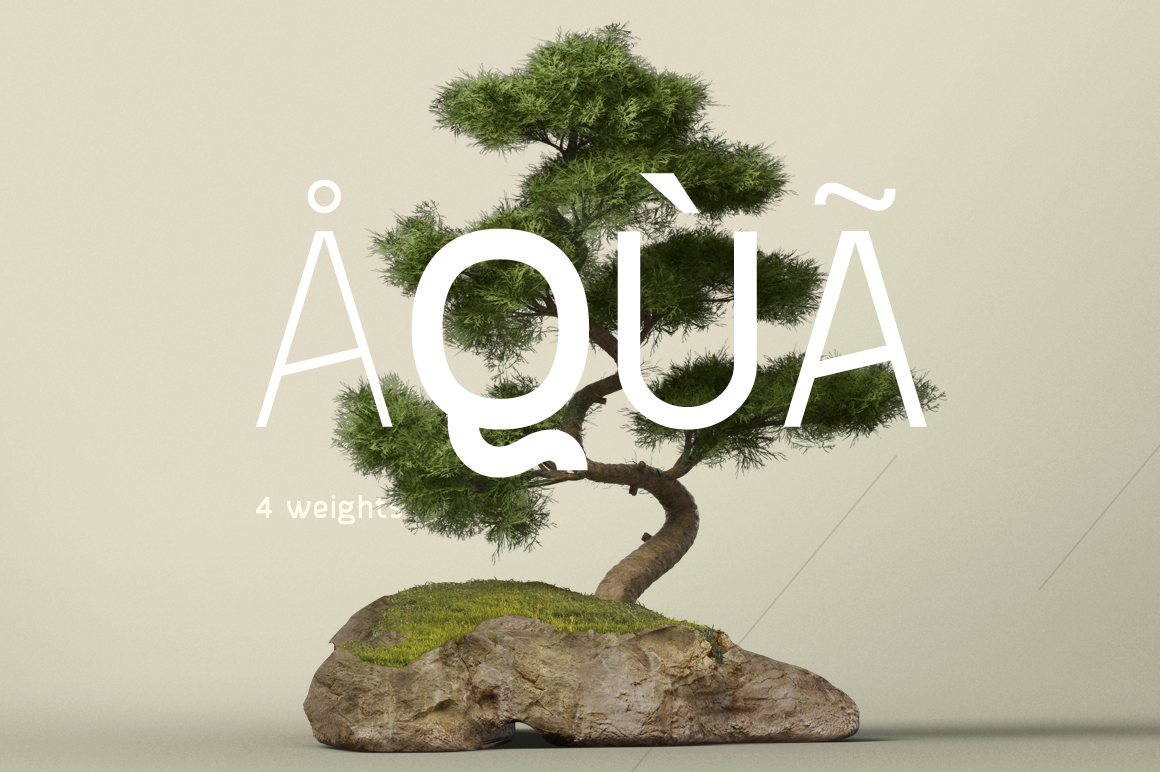
Berkslund Typeface
Introducing Berkslund, a modern take on the original flat font design. This elegant and crisp font is the perfect addition to your next creative design and will work perfectly with headings or interactive products. Berkslund has 1500 kerning pairs and includes Thin, Light, Regular and Bold weight glyphs.
Language support: Contains full set of Latin alphabet, including diacritical marks for European languages and Cyrillic alphabets.